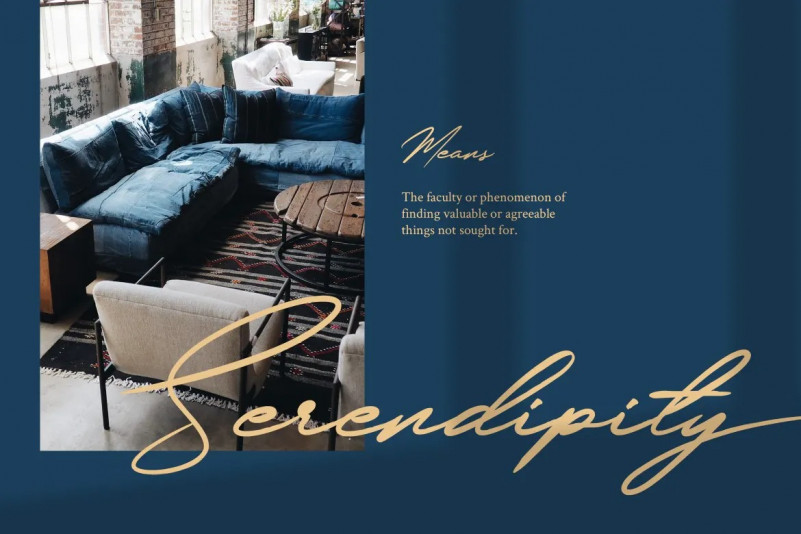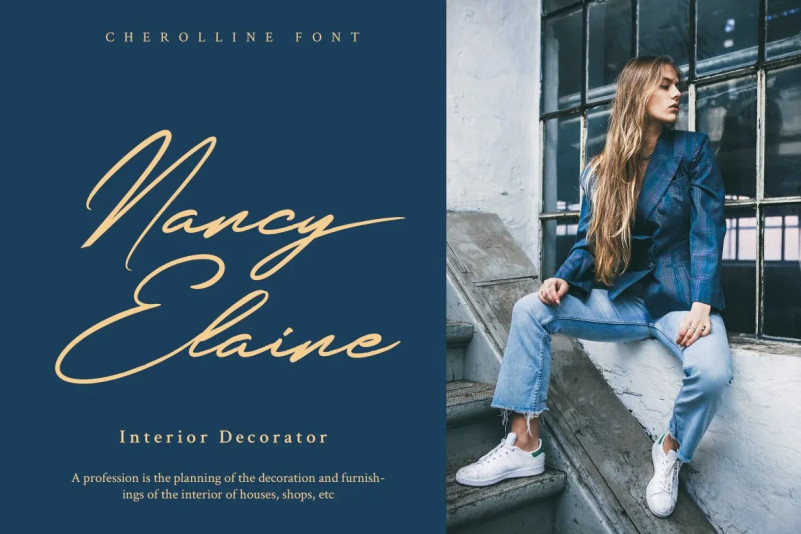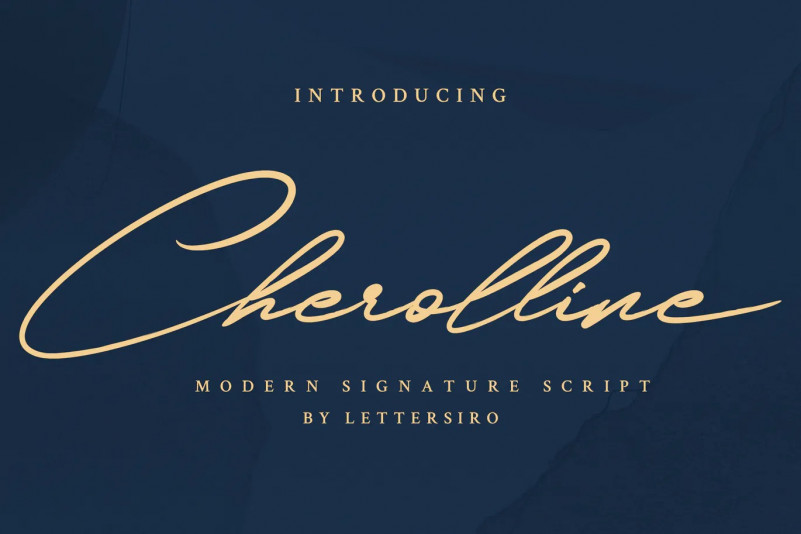
Cherolline Font
Cherolline an elegant signature script. It’s perfect for signature purposes, watermarks, photography, business designs, and much more!